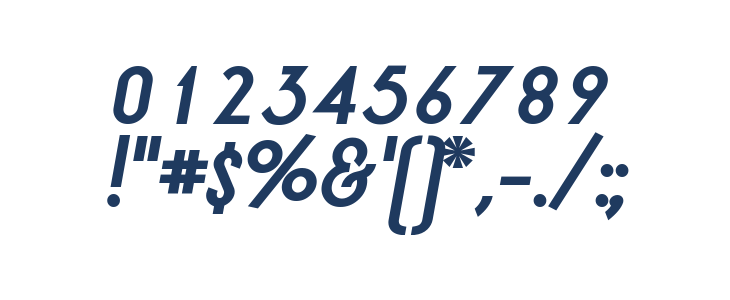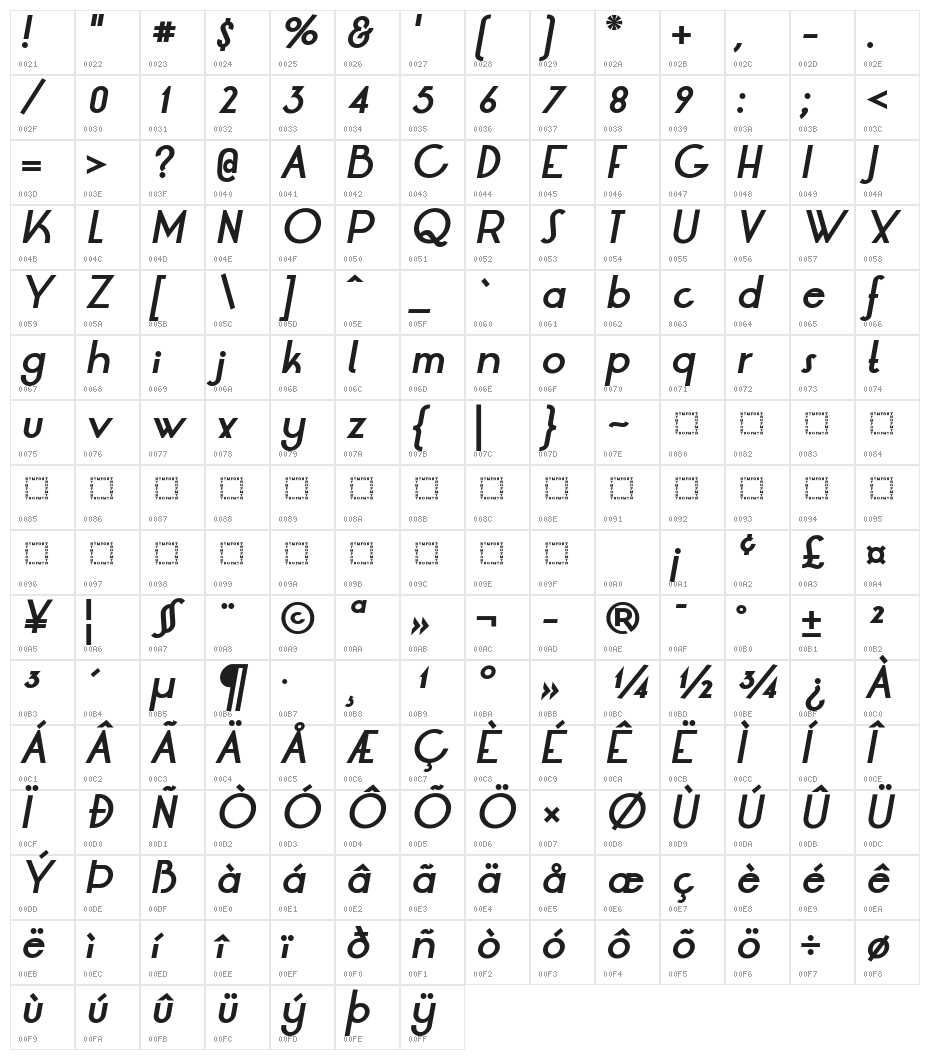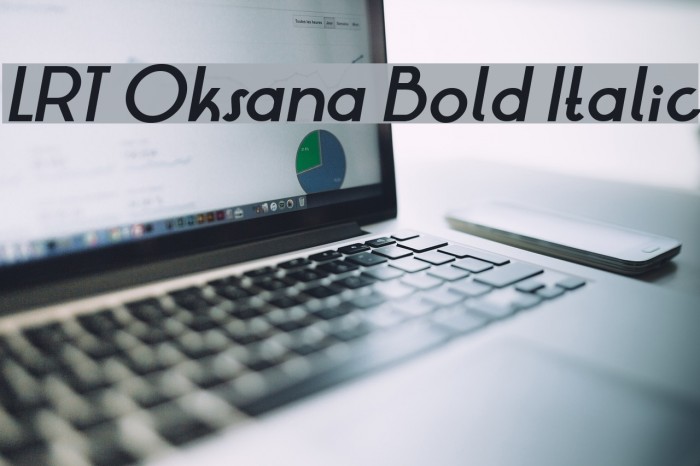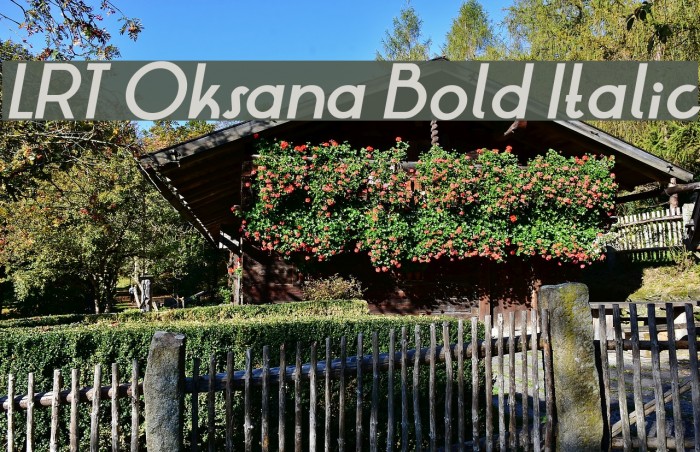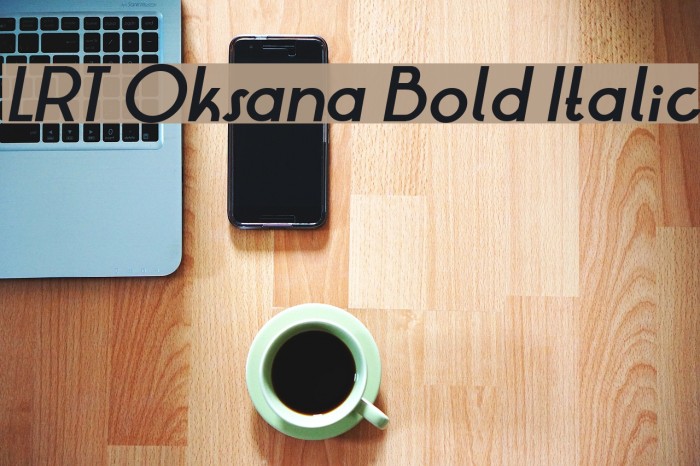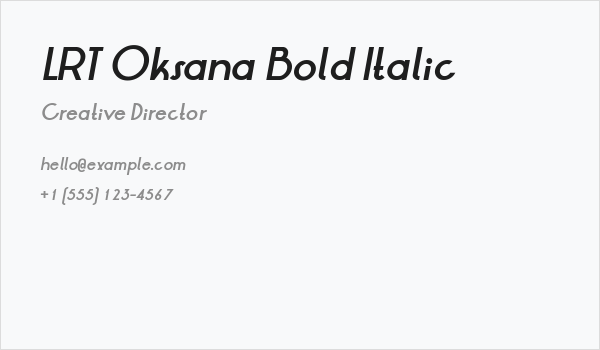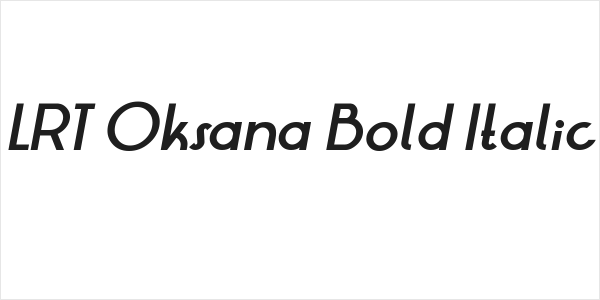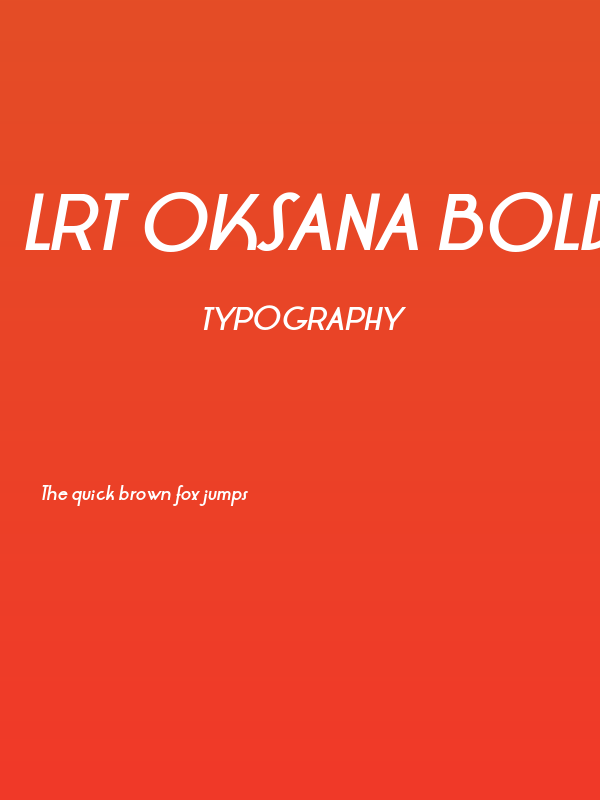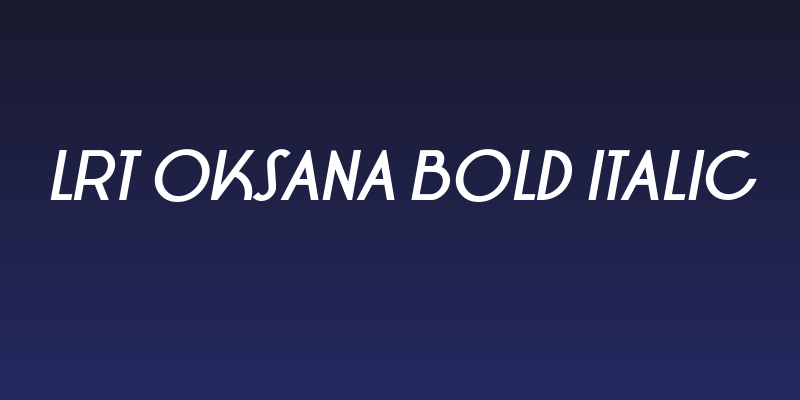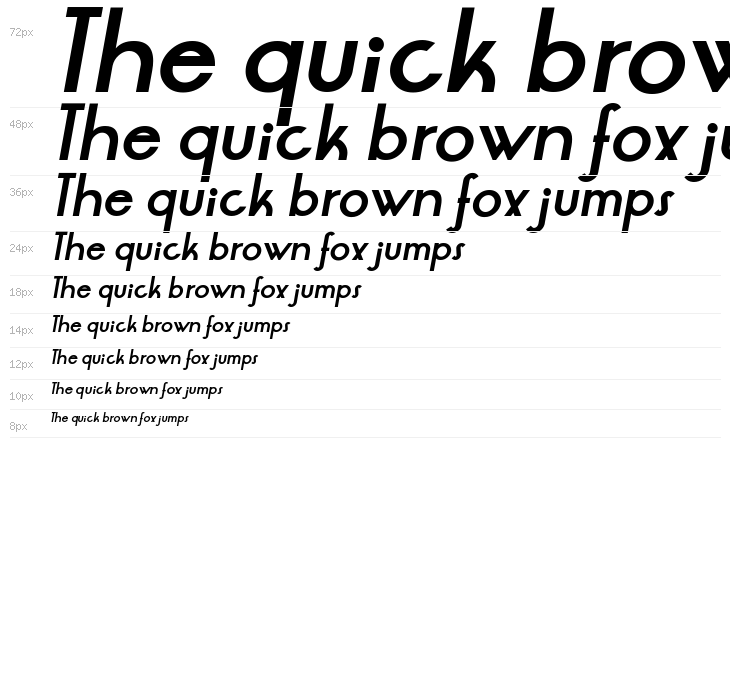
LRT Oksana Bold Italic Font
LRT Oksana Bold Italic Description
This font exhibits a dynamic and modern style with a distinct italic slant, giving it a sense of motion and energy. The characters are bold, with a consistent stroke weight that ensures readability. The uppercase letters are slightly taller than average, providing a commanding presence, while the lowercase letters maintain a harmonious balance with rounded edges. The numerals are clear and legible, matching the overall boldness of the font. Special characters are well-defined, adding versatility for various uses. The font's design is both contemporary and expressive, making it suitable for a wide range of creative applications.
| Use Case | Headlines, Logos, Advertising |
| Proposed Projects | Ideal for branding, advertising, headlines, and creative design projects that require a bold and modern aesthetic. |